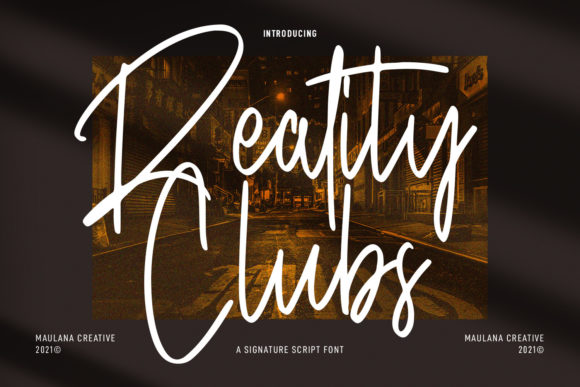
Introducing Reality Clubs font, the signature script font that breathes life into your e-commerce food branding. Each character dances across the screen like a culinary masterpiece, inviting customers to savor the flavors of your delectable offerings.
Unleash the artistry in your e-commerce food store with Reality Clubs, a font that's as warm and inviting as a freshly baked pie. Its handwritten strokes evoke the intimacy of a family dinner, creating a connection that draws customers in and keeps them coming back for more.
Picture your website's banner adorned with Reality Clubs, its graceful curves guiding visitors on a gastronomic adventure. Menu items come alive, their names dancing across the page like an irresistible symphony of flavors. Let Reality Clubs be the secret ingredient that transforms your online food store into an unforgettable dining experience.
Whether you're a seasoned e-commerce chef or just starting to explore the world of online food sales, Reality Clubs is the font that will take your branding to the next level. Its versatility extends beyond food, making it a perfect choice for any project that demands a touch of authenticity and elegance.
Reality Clubs is more than just a font; it's a culinary canvas where your creativity can run wild. So, don't just sell food—create an unforgettable dining experience with Reality Clubs.